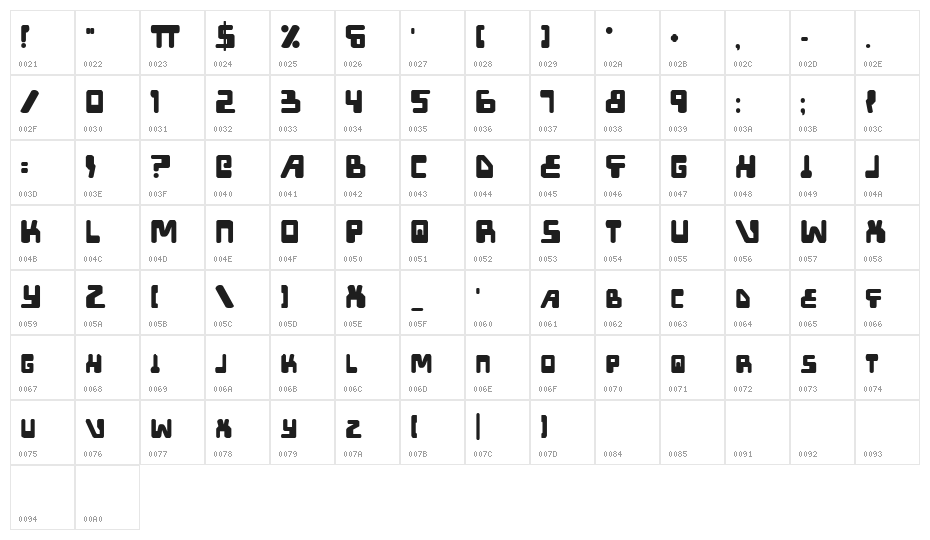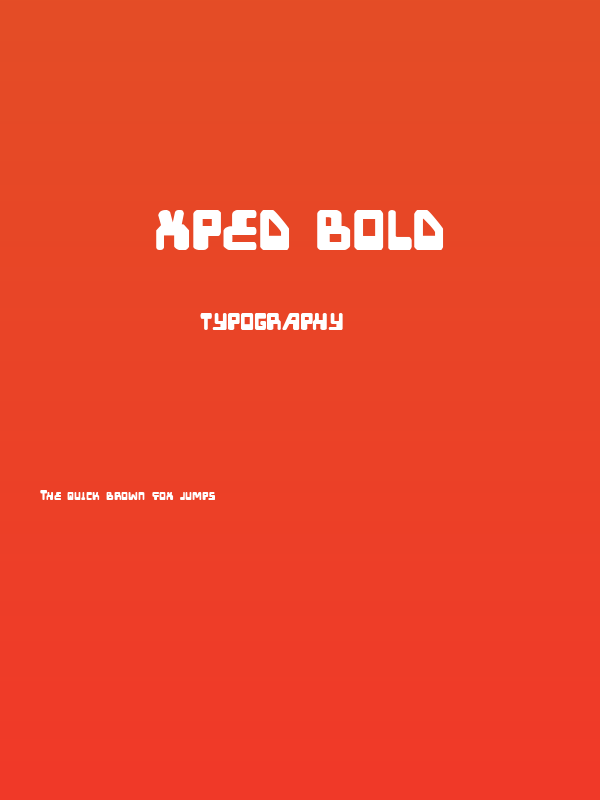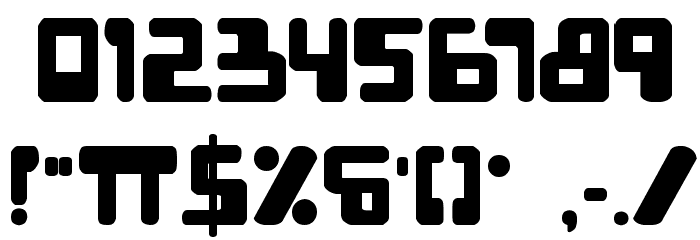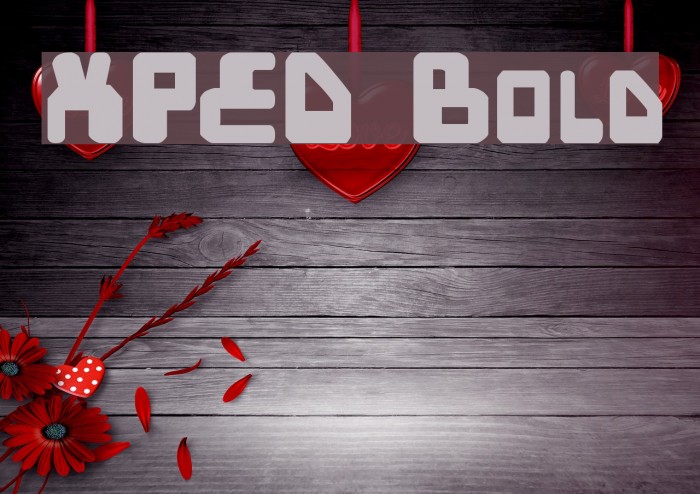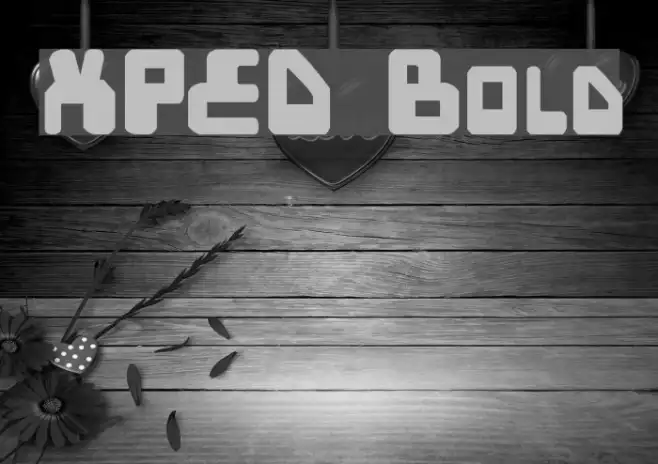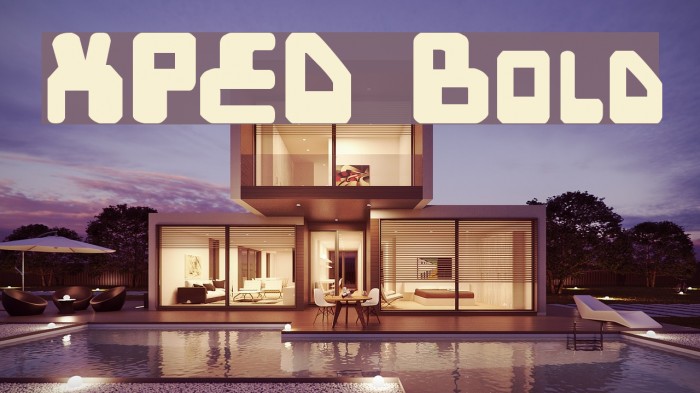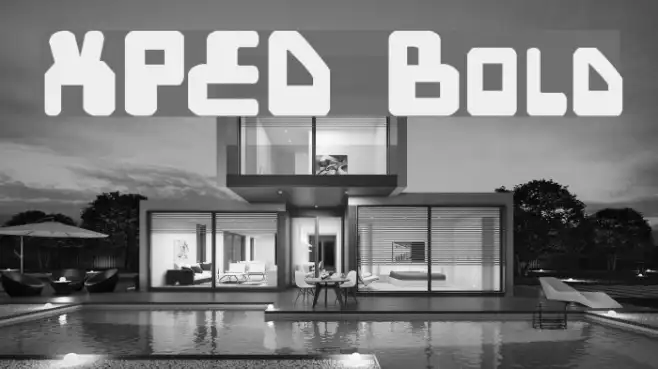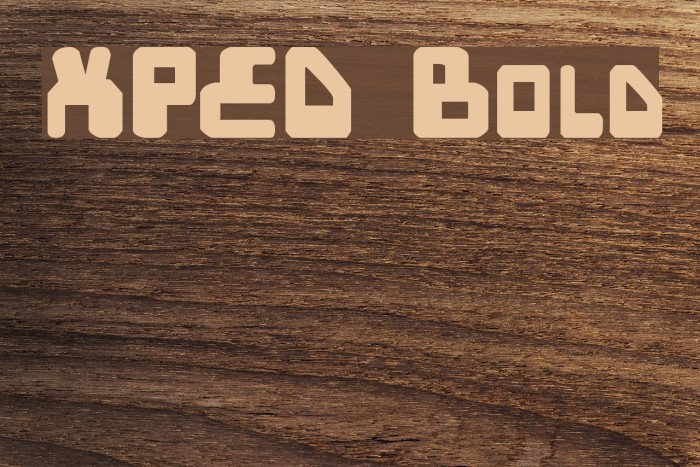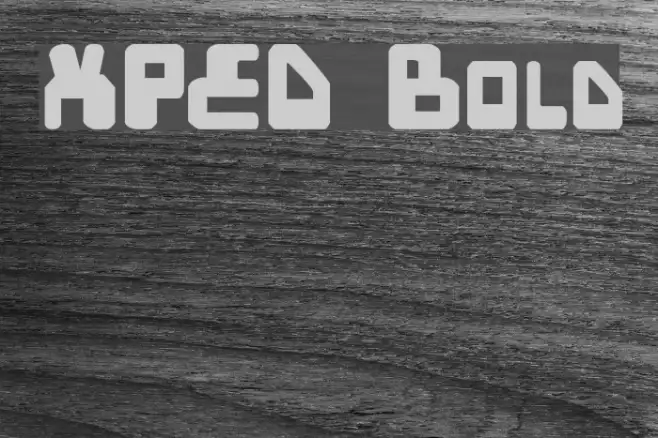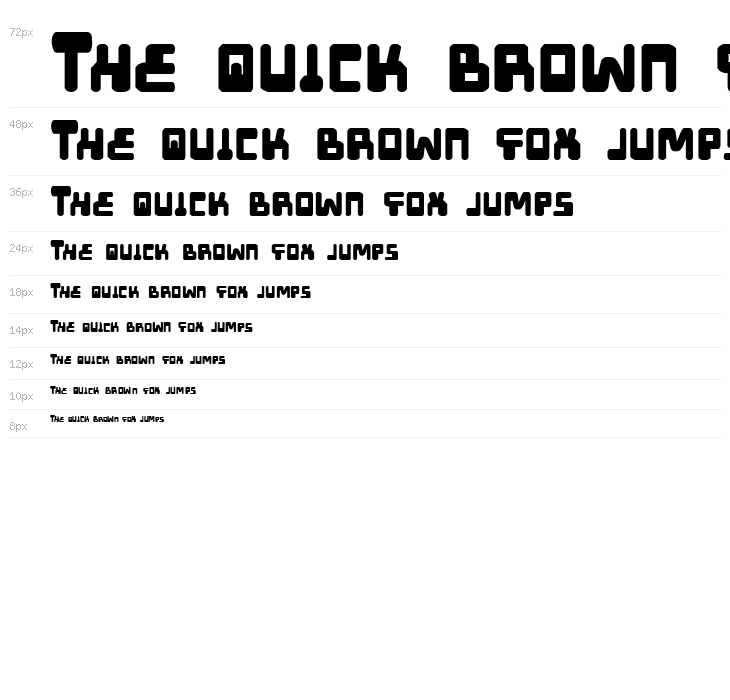
XPED Bold Font
XPED Bold Description
This font features a bold, geometric style with a futuristic flair. The characters are constructed with thick, uniform strokes that give a sense of strength and stability. The angular design and rounded corners create a unique blend of sharpness and softness, making it stand out. The uppercase letters are particularly striking, with a consistent height and width that contribute to a cohesive appearance. The numerals and special characters maintain the same boldness, ensuring uniformity across all text. This font is highly legible and commands attention, making it ideal for impactful designs.
| Proposed Projects | Ideal for branding, posters, video game graphics, and sci-fi themed projects. |